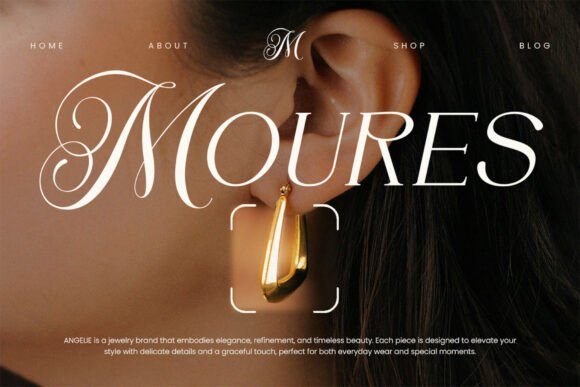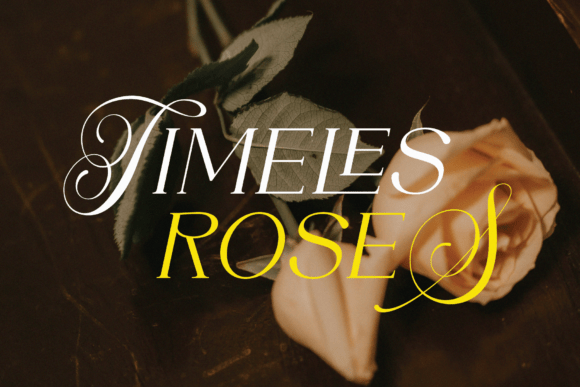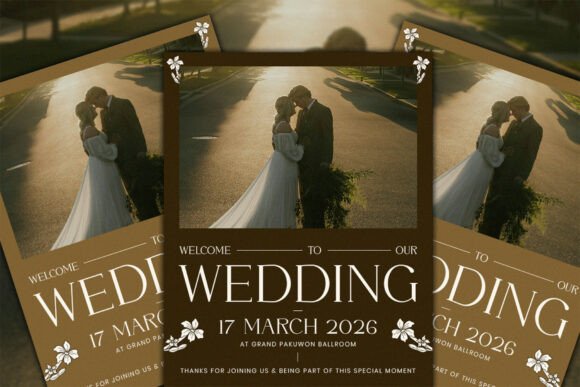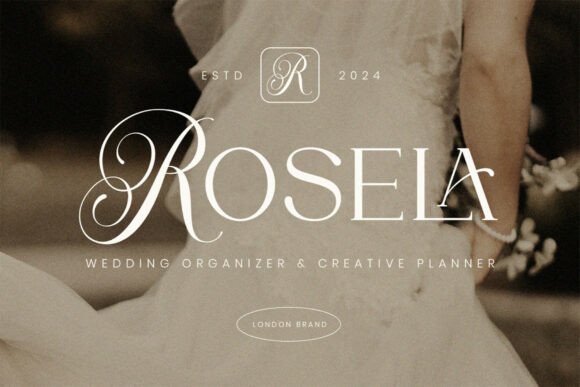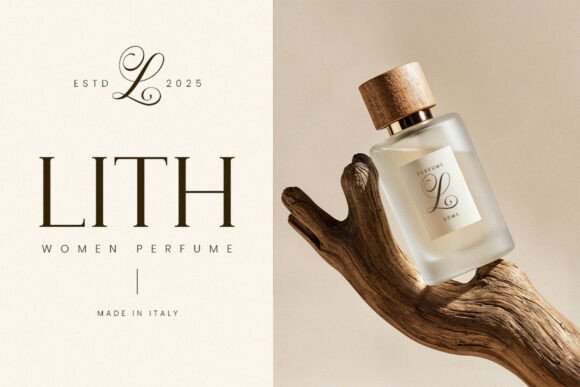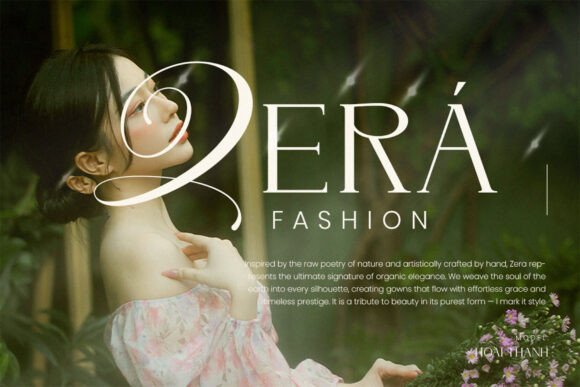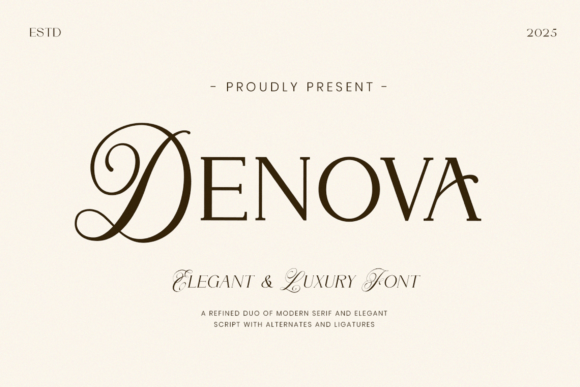
Unveiling Denova Font: Elevate Your Brand with Timeless Elegance
In the realm of typography, few fonts manage to strike a balance between modernity and classic sophistication. Denova Font, however, achieves this delicate equilibrium with grace, offering a luxurious duo of modern serif and elegantly fluid script fonts. Designed to grant your branding a timeless appeal, Denova is poised to become the star player in your typography toolkit.
The Essence of Denova: A Harmonious Blend of Solidity and Gentleness
Denova embodies a unique blend of confidence and elegance, making it an ideal choice for high-end brands. The serif component exudes robustness with its substantial proportions and tasteful contrast, while the script element flows with the grace and carefree spirit of refined swashes and fashion-forward details. This harmonious blend ensures that Denova brings a highly polished and elevated aesthetic to projects in beauty, fashion, wedding, or boutique markets.
Key Features of Denova Font
- Modern, Opulent Serif and Elegant Script: Denova offers a versatile duo that includes a modern serif and an elegant script, swathed in beautiful swashes. This combination allows for a wide range of design possibilities, from bold statements to delicate touches.
- Chic Alternates and Ligatures: The font comes equipped with chic alternates and ligatures, providing designers with the tools to add a personal touch to their work. These features enable the creation of unique and captivating text that stands out.
- Impeccable Balance of Boldness and Delicate Charm: Denova’s design strikes an impeccable balance between boldness and delicate charm. This balance makes it suitable for a variety of applications, from luxury branding to elegant wedding invitations.
Applications of Denova Font
Denova’s versatility and elegance make it suitable for a variety of applications, including:
- Beauty and Fashion Brands: For beauty and fashion brands looking to make a statement, Denova offers the perfect combination of modernity and luxury. Its elegant script and robust serif are ideal for creating a sophisticated brand image.
- Wedding and Boutique Markets: In the wedding and boutique markets, Denova’s delicate and refined features shine. It can be used to create stunning wedding invitations, elegant boutique branding, and more.
- High-End Branding: For any brand aiming to convey a sense of luxury and timelessness, Denova is an excellent choice. Its unique blend of modern and classic elements ensures that your brand stands out with sophistication.
Why Choose Denova Font?
Choosing Denova Font for your design projects comes with numerous benefits:
- Unique Typography: Denova offers a unique typography solution that combines the best of modern serif and elegant script fonts.
- Versatility: Its versatility means you can use Denova across a wide range of projects, from digital platforms to print materials.
- Elegance and Sophistication: Denova brings an unparalleled level of elegance and sophistication to any project, ensuring your designs are always classy and refined.
Denova Font is more than just a typography solution; it’s a design experience. With its luxurious duo of modern serif and elegantly fluid script fonts, Denova is designed to elevate your branding to new heights of elegance and sophistication. Whether you’re working on high-end brands, beauty, fashion, wedding, or boutique projects, Denova offers the perfect blend of modernity and timeless appeal. Revel in the classy allure of Denova and enjoy designing with a font that promises to make your projects stand out.
Get Ready to Elevate Your Designs with Denova
Experience the transformative power of Denova Font in your designs. With its impeccable balance of boldness and delicate charm, chic alternates, and ligatures, Denova is set to become your go-to typography choice for projects that demand the highest level of elegance and sophistication. Dive into the world of refined typography with Denova and discover a new level of design excellence.